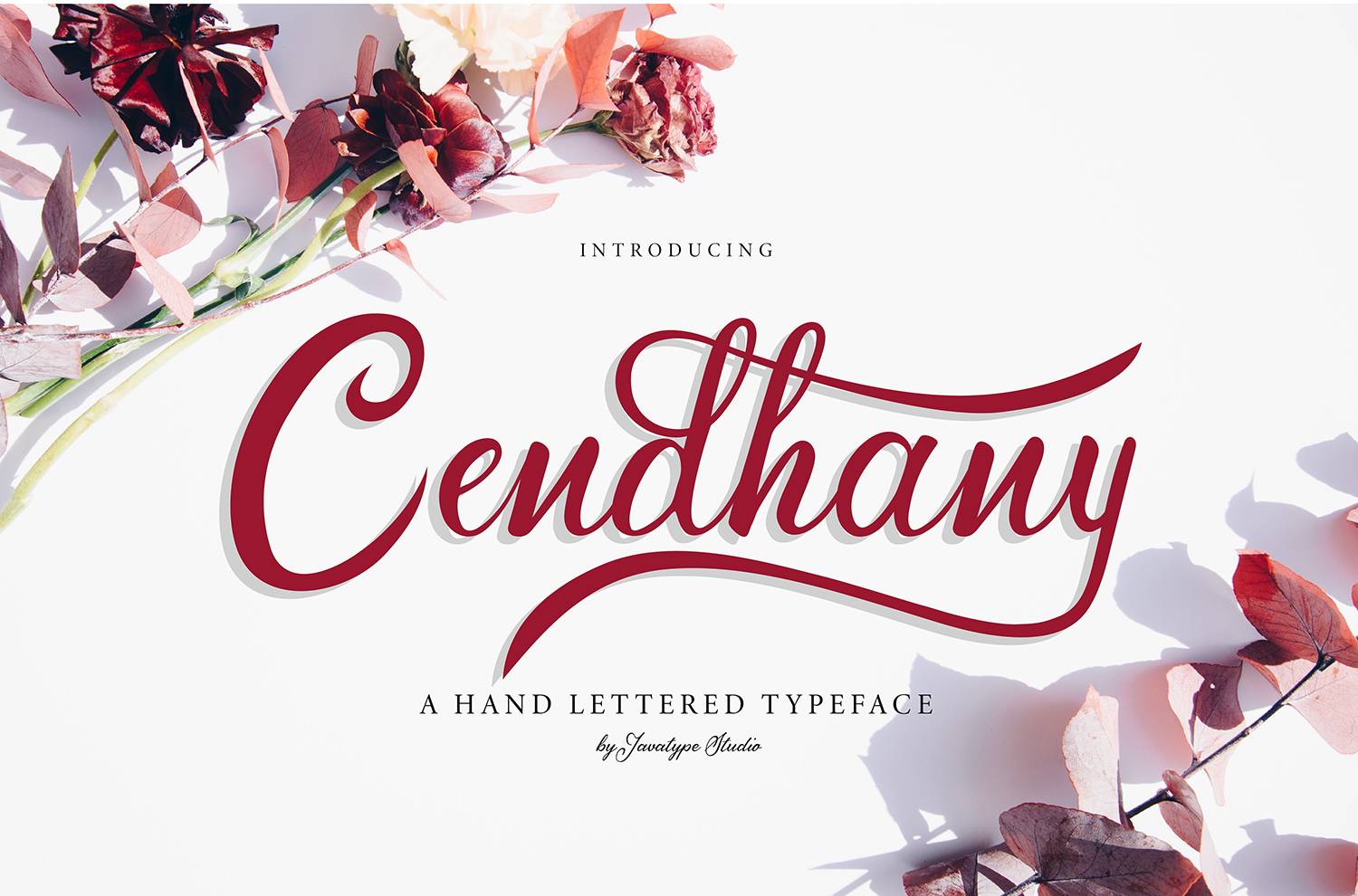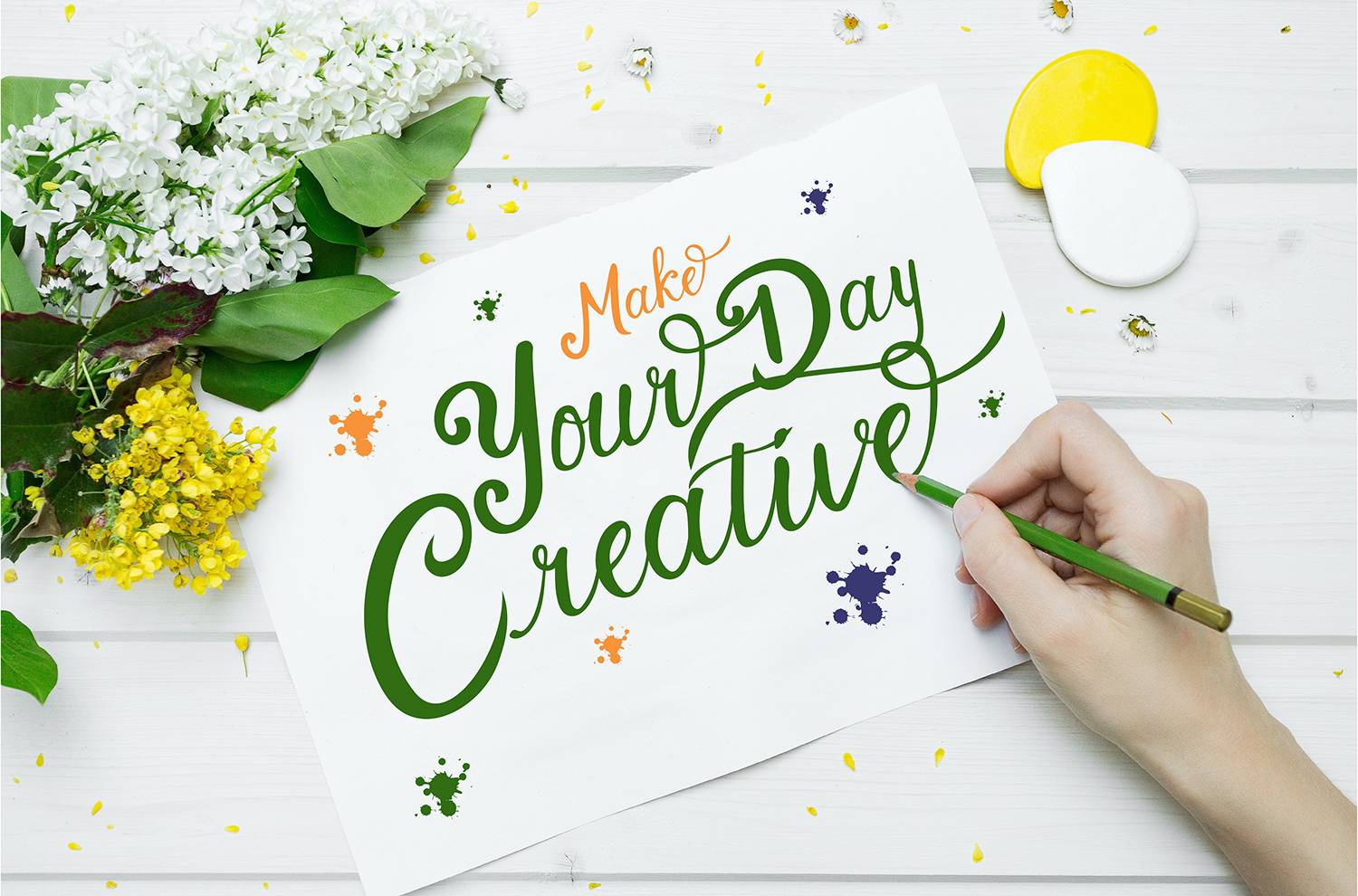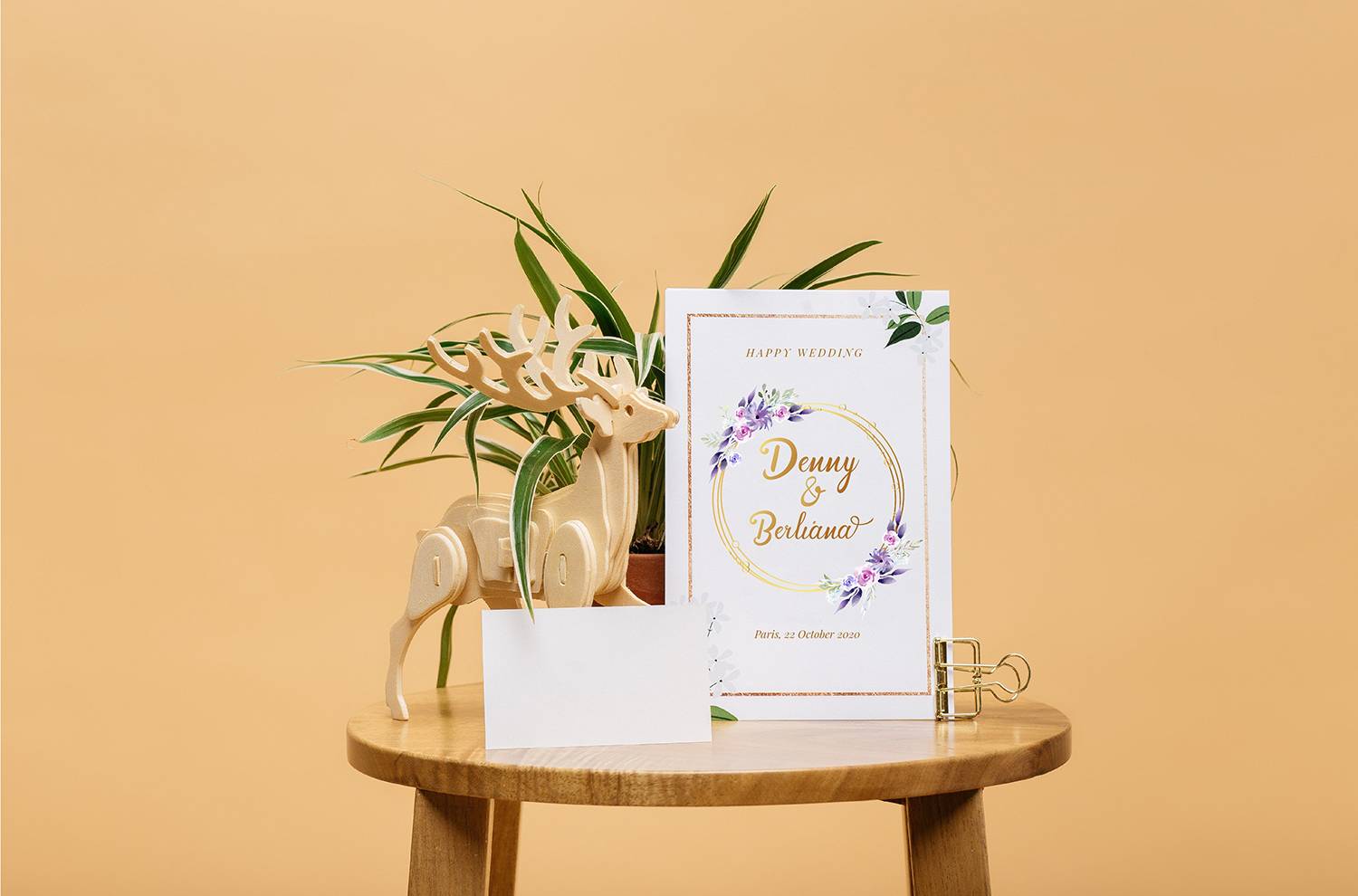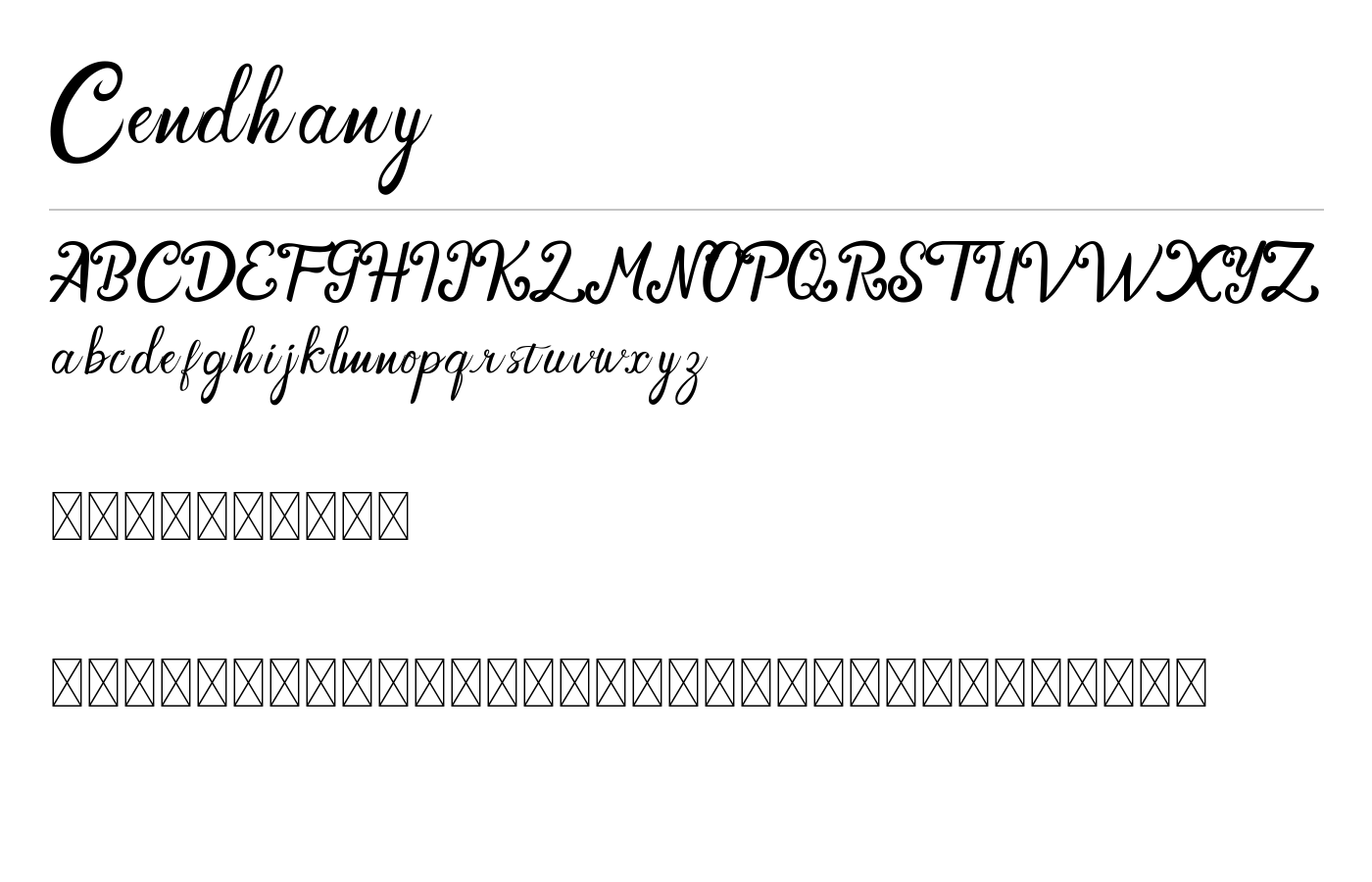
Cendhany is a stylish script font with graceful, flowing strokes and elegant curves, giving it a charming and sophisticated feel. Its slender, cursive letterforms are perfect for adding a personal, handcrafted touch to wedding invitations, branding, packaging, and feminine design projects. This font works beautifully in headlines and decorative uses where a refined and romantic atmosphere is desired.
| Font family | Cendhany Font |
| Release date | 2020-10-12 |
| Designer | Javatype Studio |